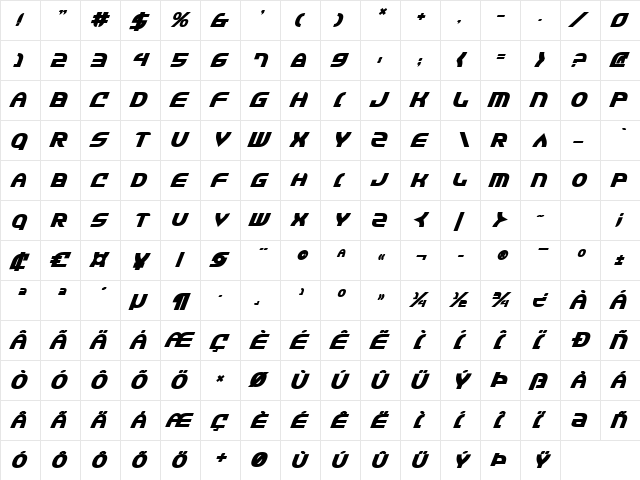
Jannisaries Bold Italic Bold Italic
Design Context for Jannisaries Bold Italic Typeface
Jannisaries Bold Italic is a composed and adaptable typeface that performs quietly and consistently across a wide range of design contexts. The slanted form adds forward momentum and visual energy. Its bold stroke weight gives it real presence on the page.
Pro Tip: Try Jannisaries Bold Italic for annotation and caption copy alongside an upright companion — the contrast in angle creates a dynamic but ordered typographic system.